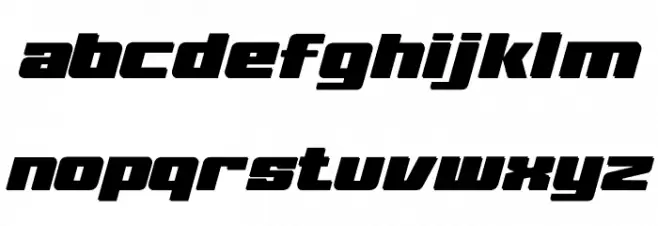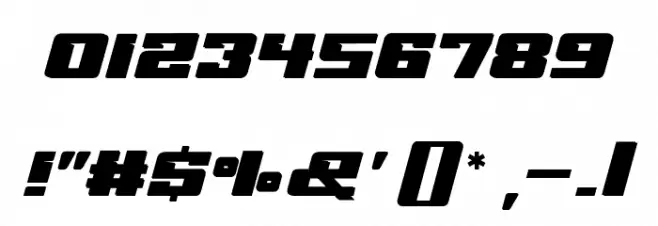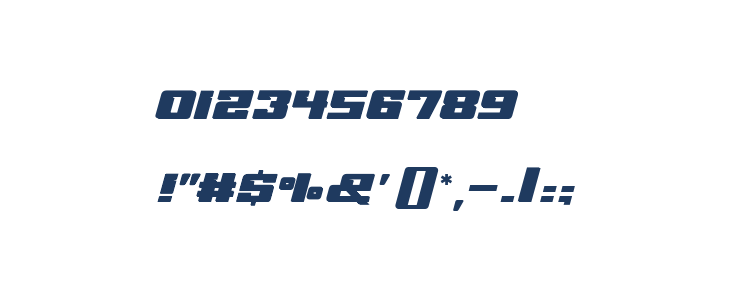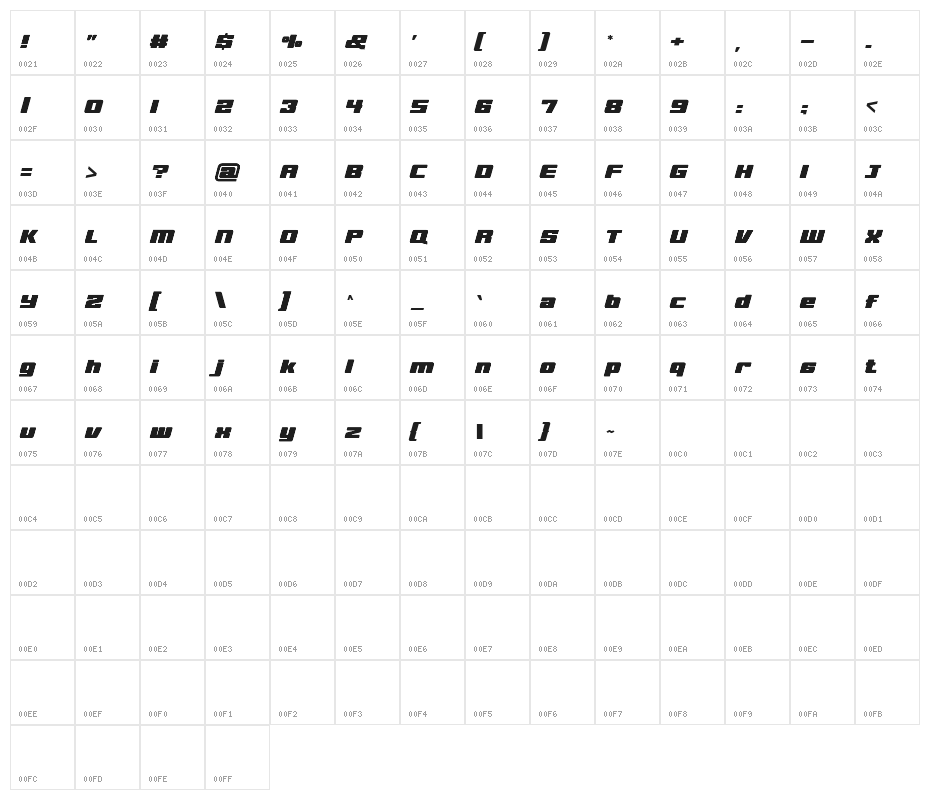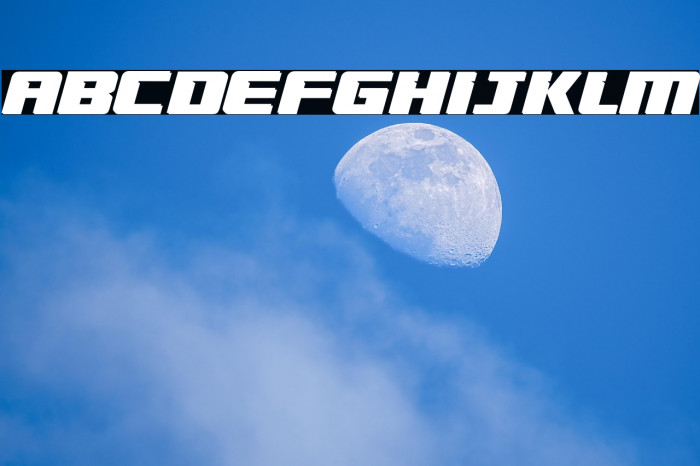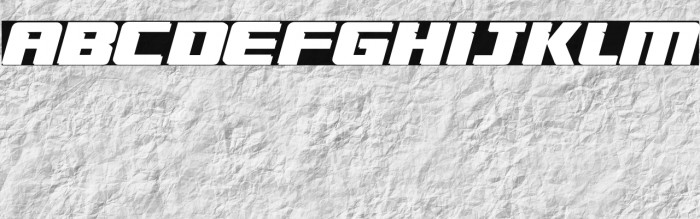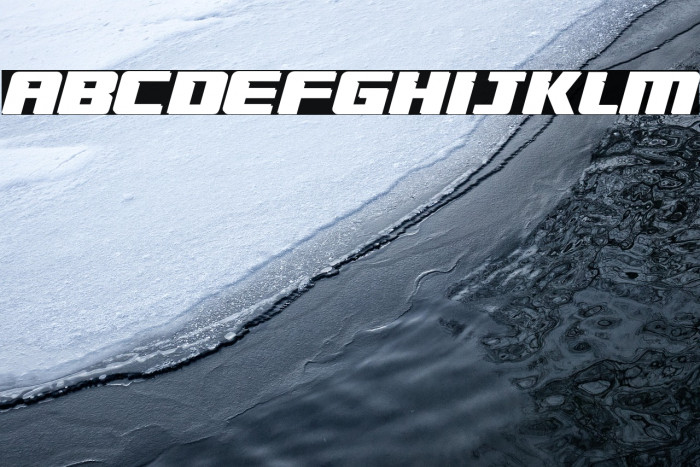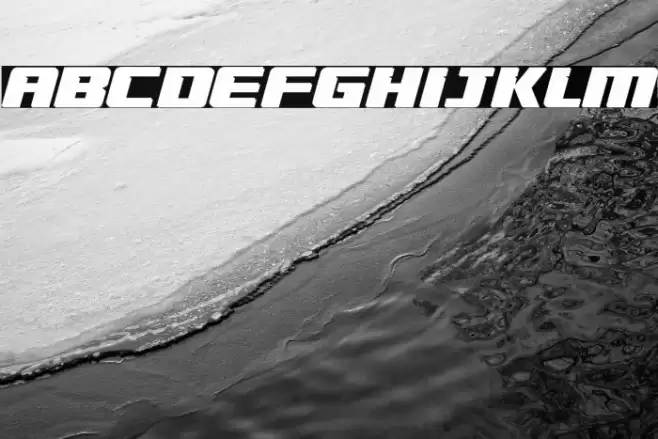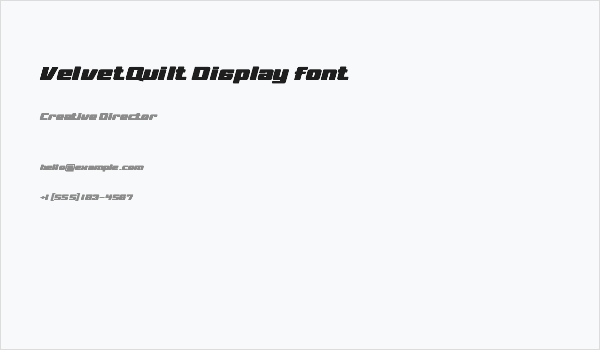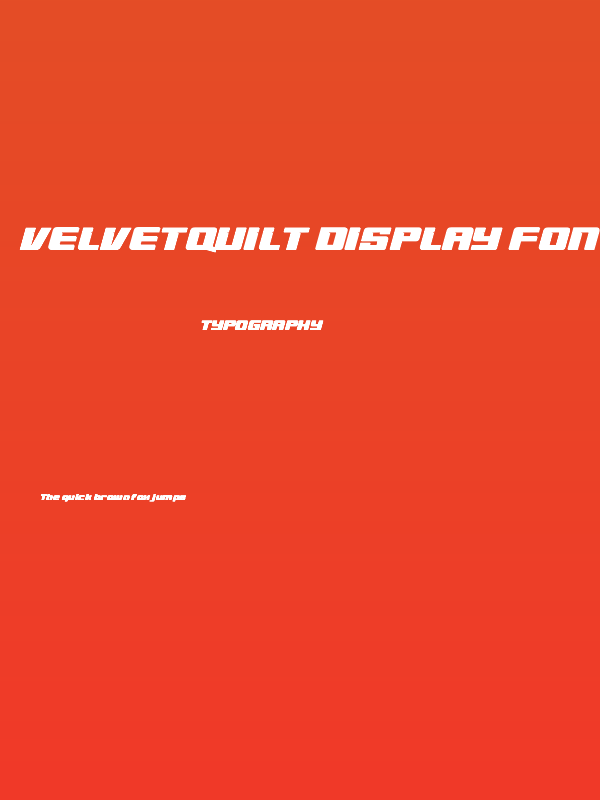
( Introducing the grateful typeface that has smooth edges with bold visuals that is known as VelvetQuilt Display Font. This is a demo font, for commercial use please purchase it here: https://www.fontforestry.com/contact-us/ FREE )